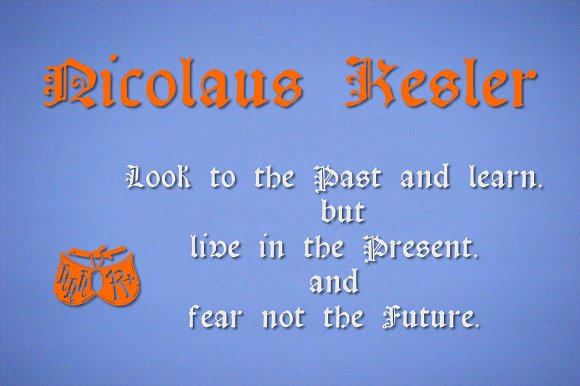
Nicolaus Kesler Font
About Nicolaus Kesler Font
Nicolaus Kesler was a printer of Incunabula in Basel, Switzerland. He produced numerous ecclesiastical works, Bibles, and an edition of the Golden Legend. This particular font is derived from one of his many typefaces. It has the virtue of both being at once fancy and elegant yet retaining a surprisingly easy to read property to it. This font has over 900 glyphs for modern usage and also includes a few of the more common historical abbreviations that were then present in printing. Also included in this package is a voided (outlined) version.